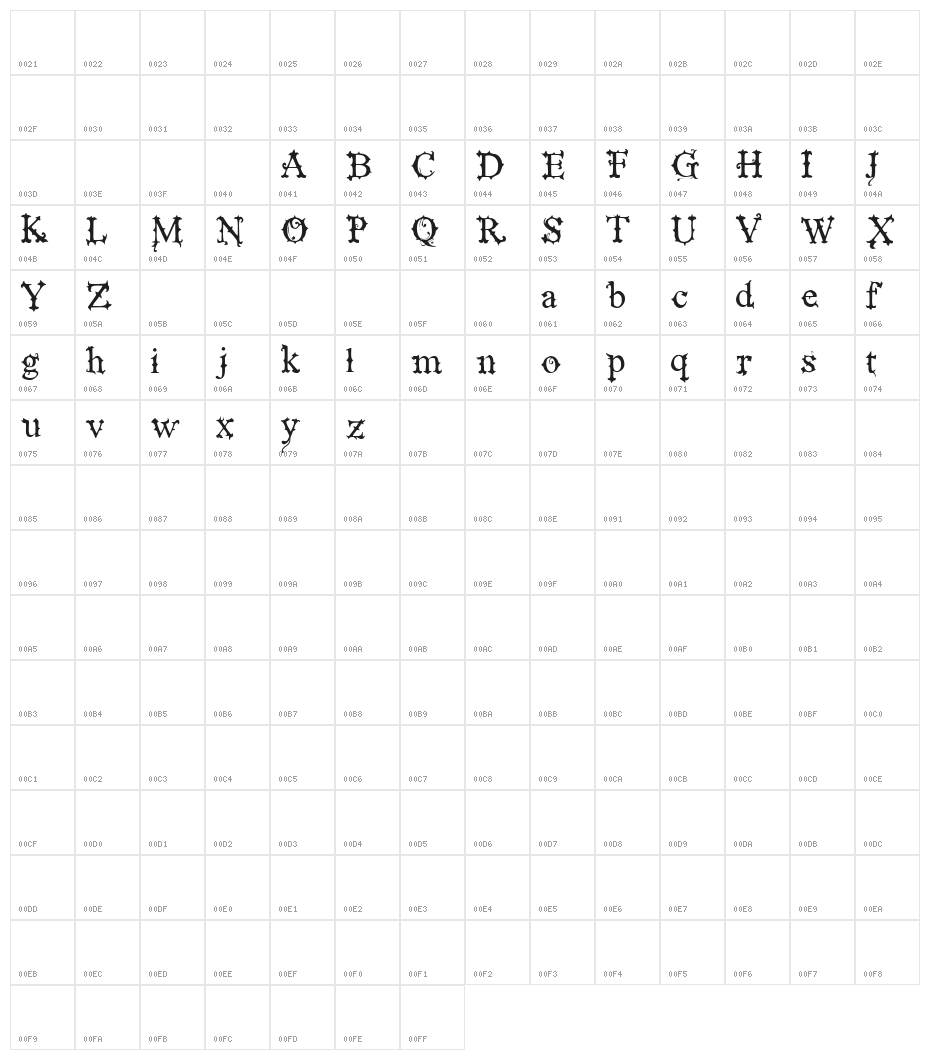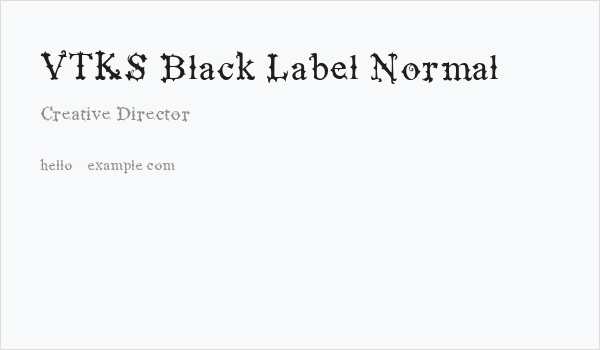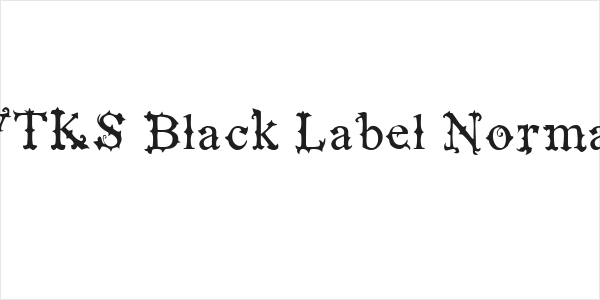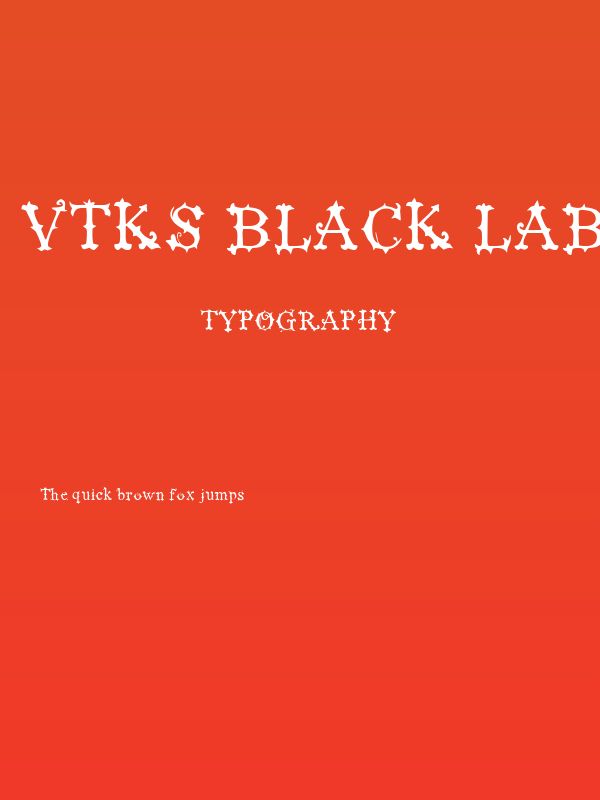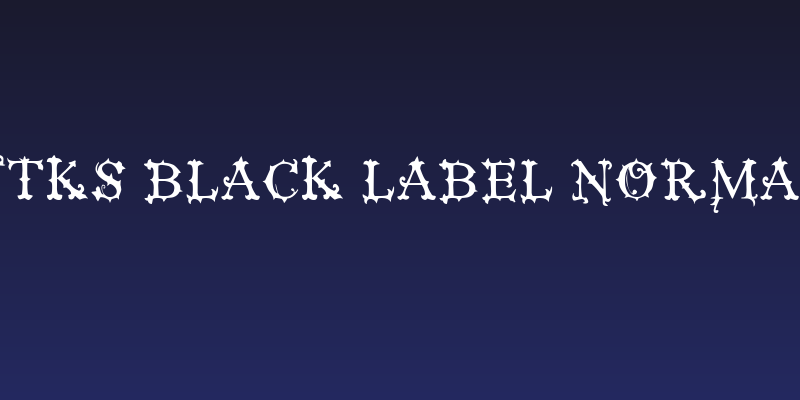
VTKS Black Label Normal Font
| Proyectos propuestos | Ideal for posters, album covers, themed event invitations, and any project requiring a dramatic, eye-catching typeface. |